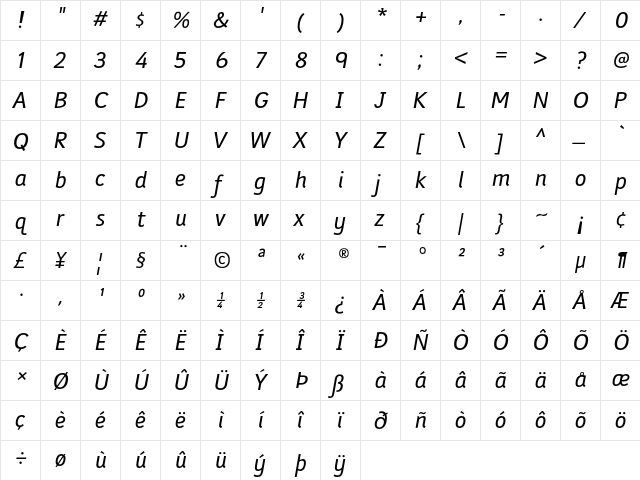
Folder Italic
Design Context for Folder Typeface
Folder takes a measured approach to typography — its balanced proportions and neutral character make it a reliable workhorse for both digital and print work. The dynamic lean of this cut emphasises speed and emphasis in any layout.
Pro Tip: Try Folder for annotation and caption copy alongside an upright companion — the contrast in angle creates a dynamic but ordered typographic system.